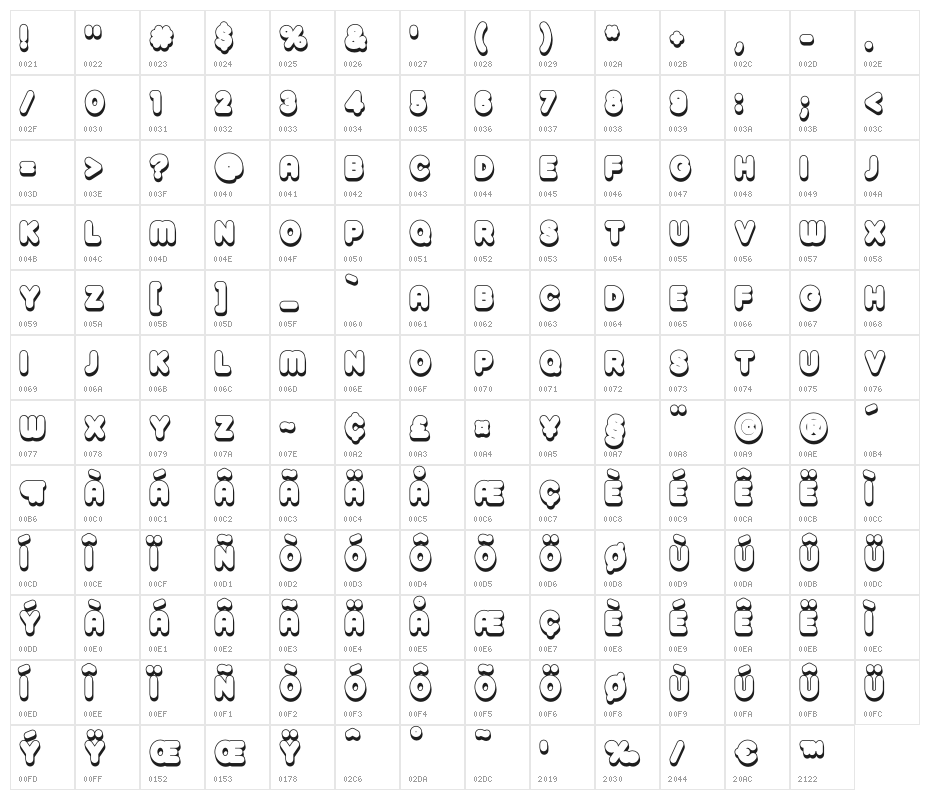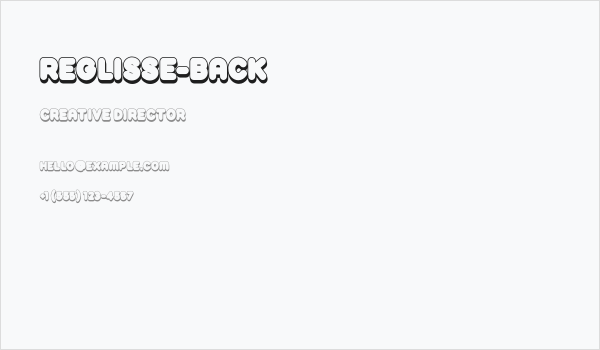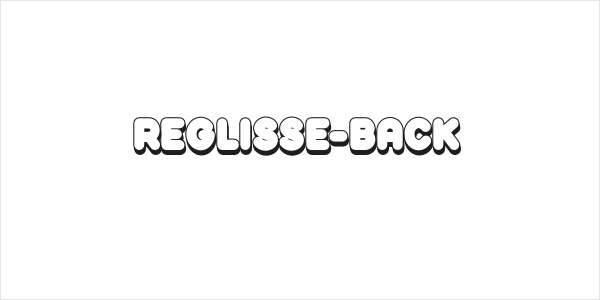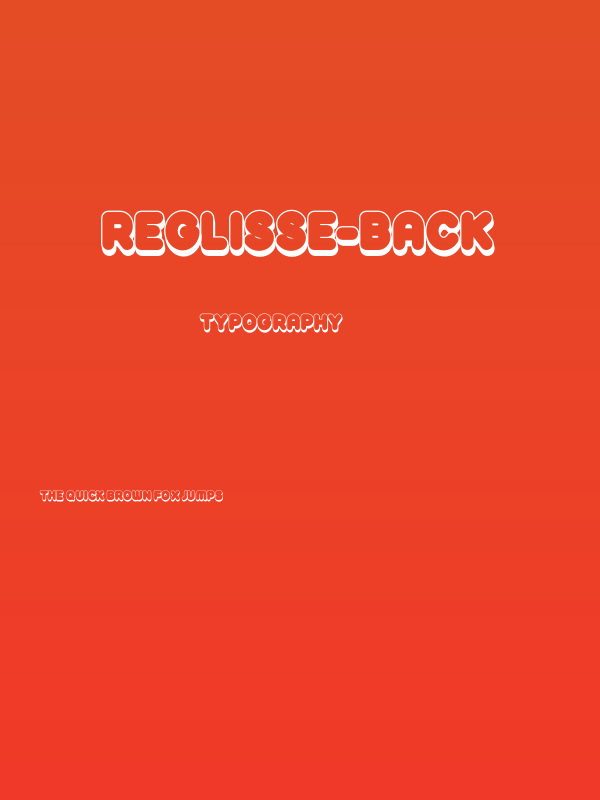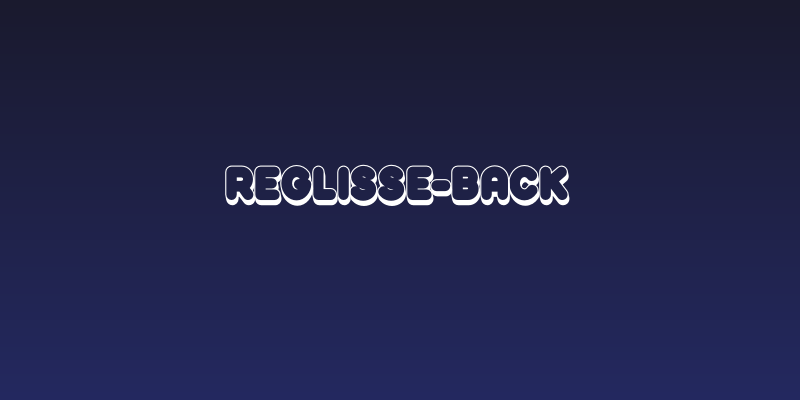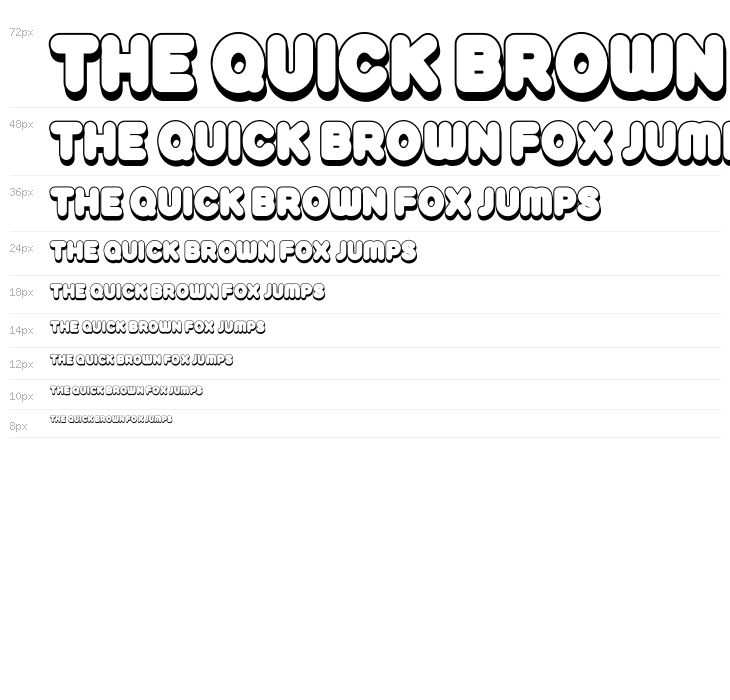
Reglisse-Back Font
Reglisse-Back Description
This playful and bold font features a bubble-like appearance with thick, rounded strokes that create a sense of fun and whimsy. The characters are outlined, giving them a three-dimensional effect that enhances their visual impact. The font maintains consistent thickness throughout each letter, contributing to its cohesive and uniform look. Its design is reminiscent of retro styles, making it ideal for projects that aim to evoke nostalgia or a playful atmosphere. The spacing between characters is tight, which helps in maintaining a compact and unified appearance.
| Overall Style | Playful, Retro |
| Proposed Projects | Ideal for children's book covers, playful branding, retro-themed posters, and eye-catching headlines. |